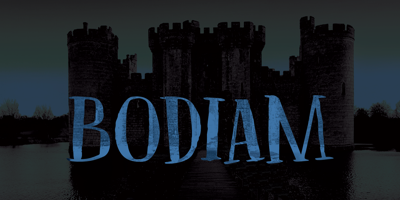
Designer Free Download
Designer Font Free Download
The Designer Font is perfect for creative agency branding, design studio portfolios, architectural presentations, fashion industry communications, art gallery exhibitions, luxury design consultancy materials, creative professional networks, and sophisticated design applications that require artistic excellence with professional authority and creative sophistication.
What makes the Designer Font Free Download so exciting is its exceptional embodiment of design principles and creative excellence through typography that captures the essence of professional design expertise and artistic vision. This typeface features refined letterforms with carefully considered proportions that suggest aesthetic sensibility, creative intelligence, and professional competence. Its sophisticated character speaks to design-conscious audiences who appreciate quality craftsmanship and artistic excellence, making it perfect for creative professionals, design agencies, and luxury brands requiring typography that projects both artistic credibility and professional authority.
The Designer Font family encompasses comprehensive weight variations from Light to Bold, each maintaining the font's signature design-focused character and creative sophistication. The collection includes Regular, Medium, and Bold styles with refined characteristics that enhance the font's professional aesthetic and artistic appeal. This sophisticated font system ensures design professionals and creative agencies have access to typography that conveys artistic authority while creating immediate connection to concepts of design excellence, creative innovation, and professional artistic expertise.
Essential for design studios, creative agencies, architectural firms, and artistic professionals requiring typography that projects both creative vision and professional competence in competitive design markets. The font's design-focused appeal makes it invaluable for creative directors, design marketers, and artistic professionals developing communications that must resonate with design-conscious clients and artistic communities. Download Designer Font Free Download today and design professional excellence into your creative projects with this exceptional typeface that embodies the perfect fusion of artistic vision and professional design sophistication.